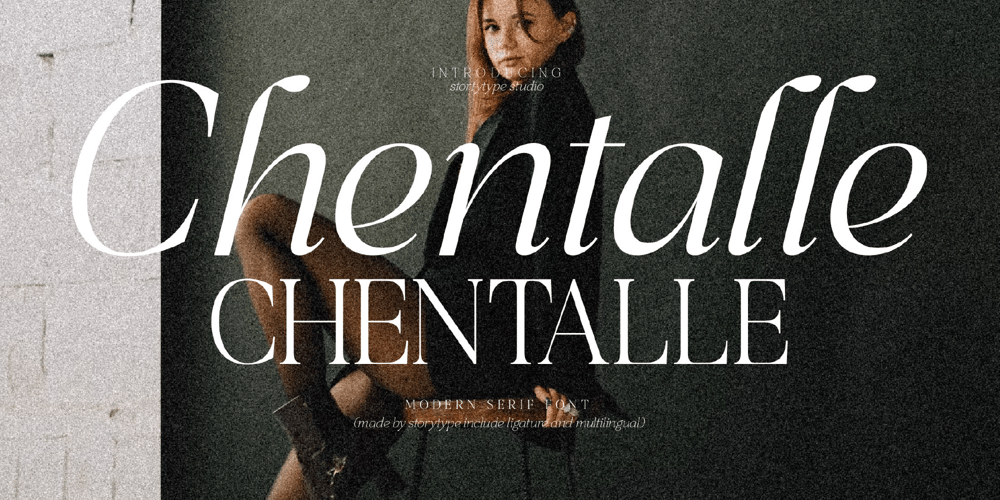
Chentalle
Chentalle font
Chentalle Font Family was designed by Heru Utama Putra and published by Letterena Studios. Chentalle contains 2 styles and family package options. Chentalle is a modern, unique, and elegant serif font perfect for elegant and luxury logos, book or movie title designs, fashion brands, magazines, clothes, lettering, quotes, and so much more.